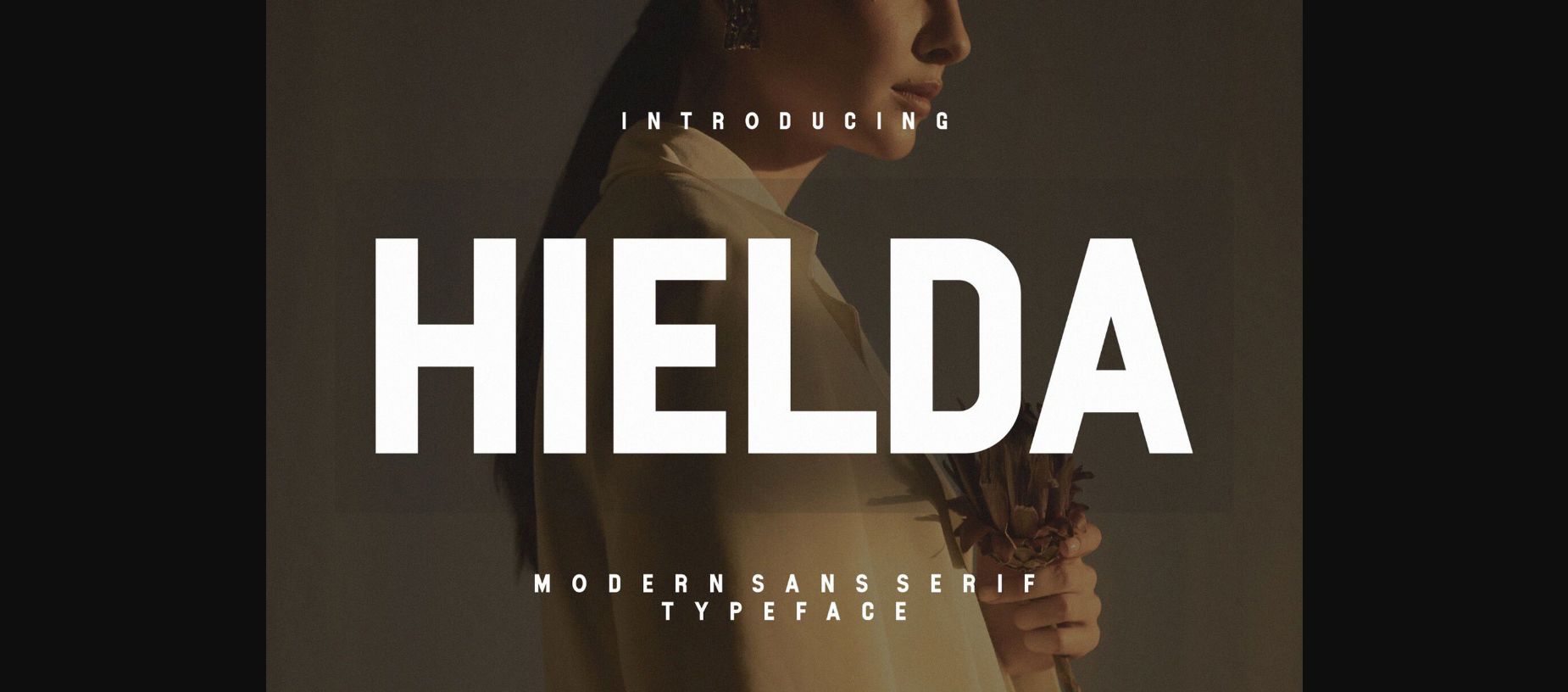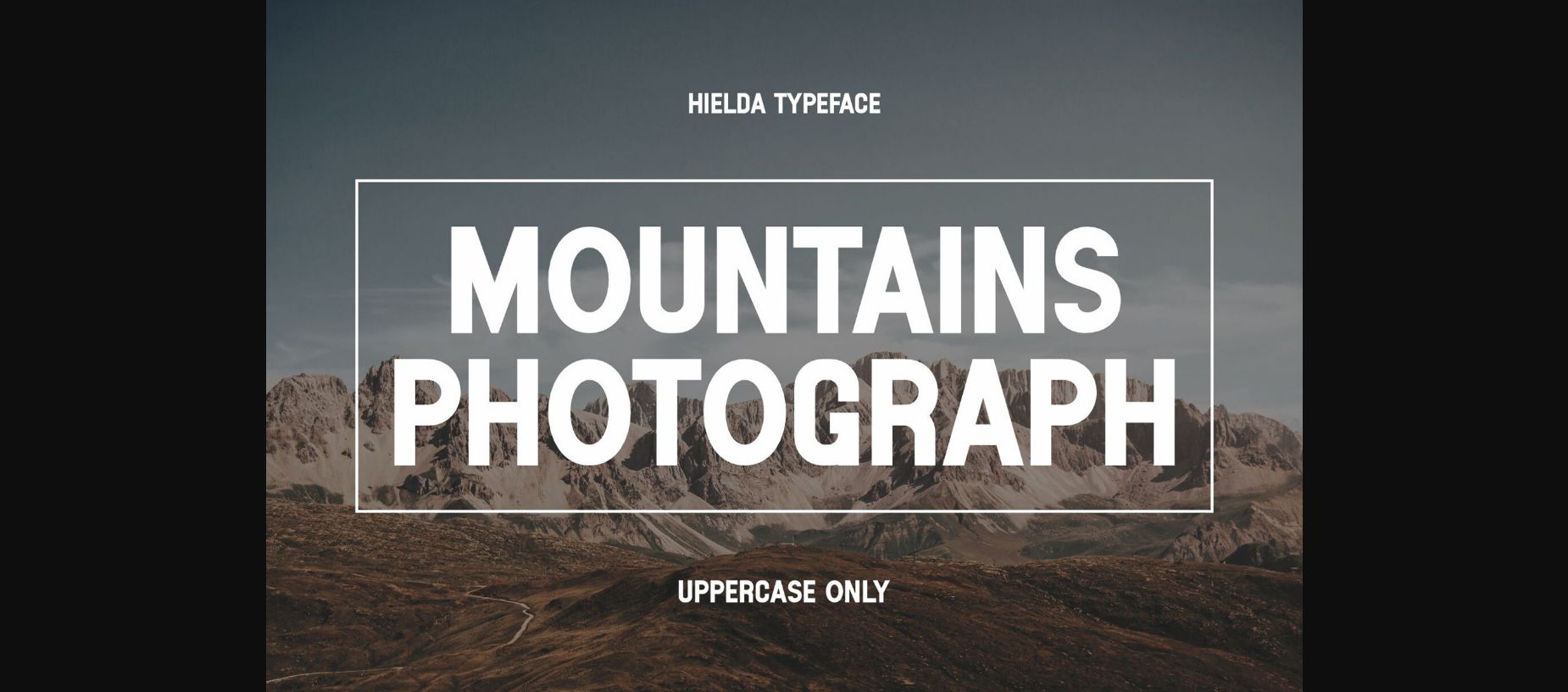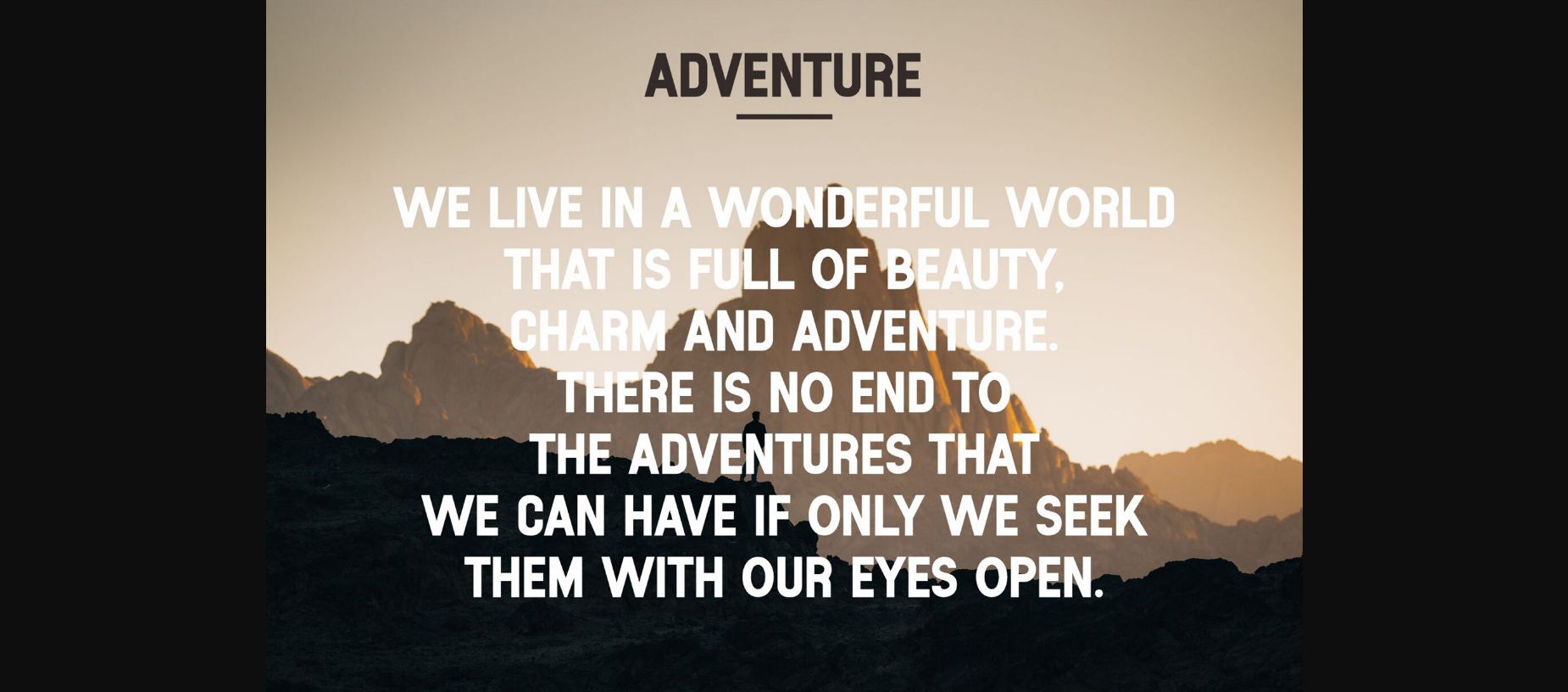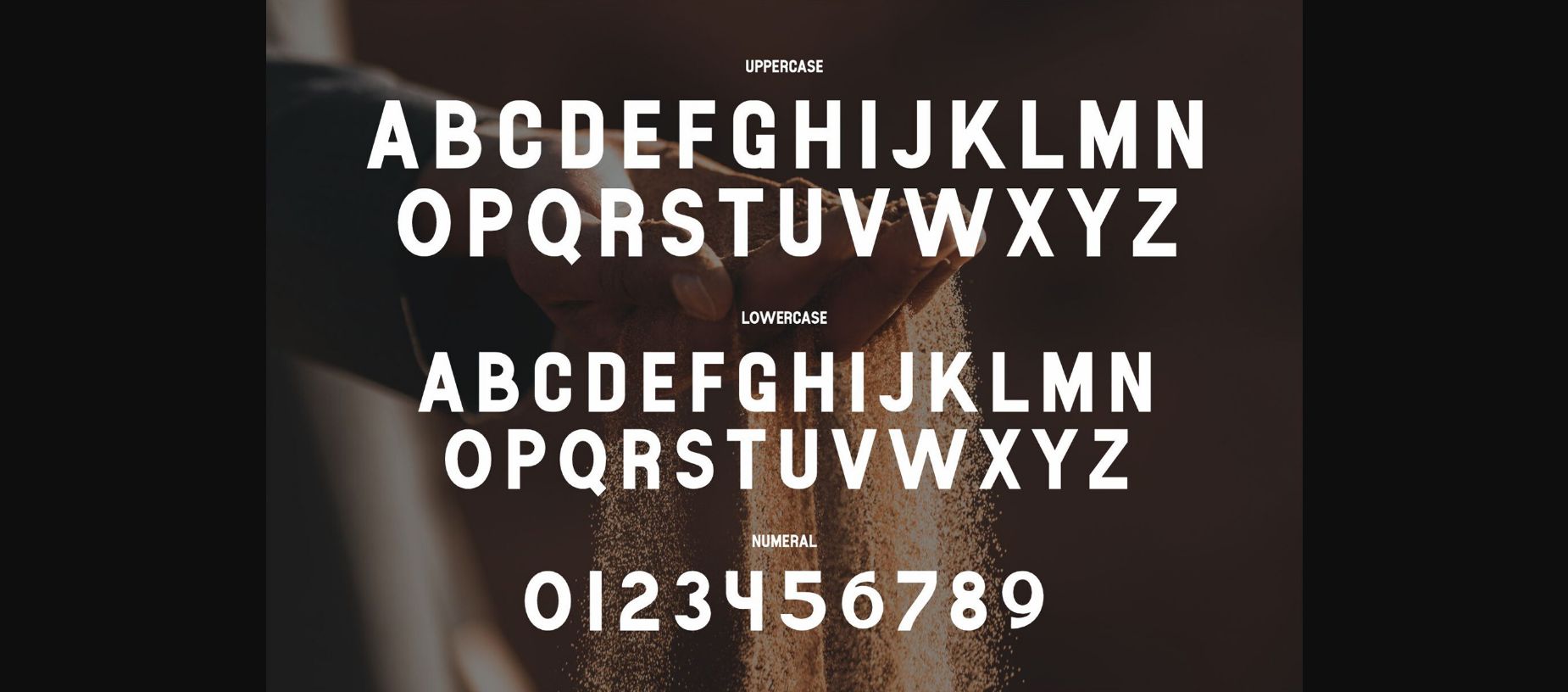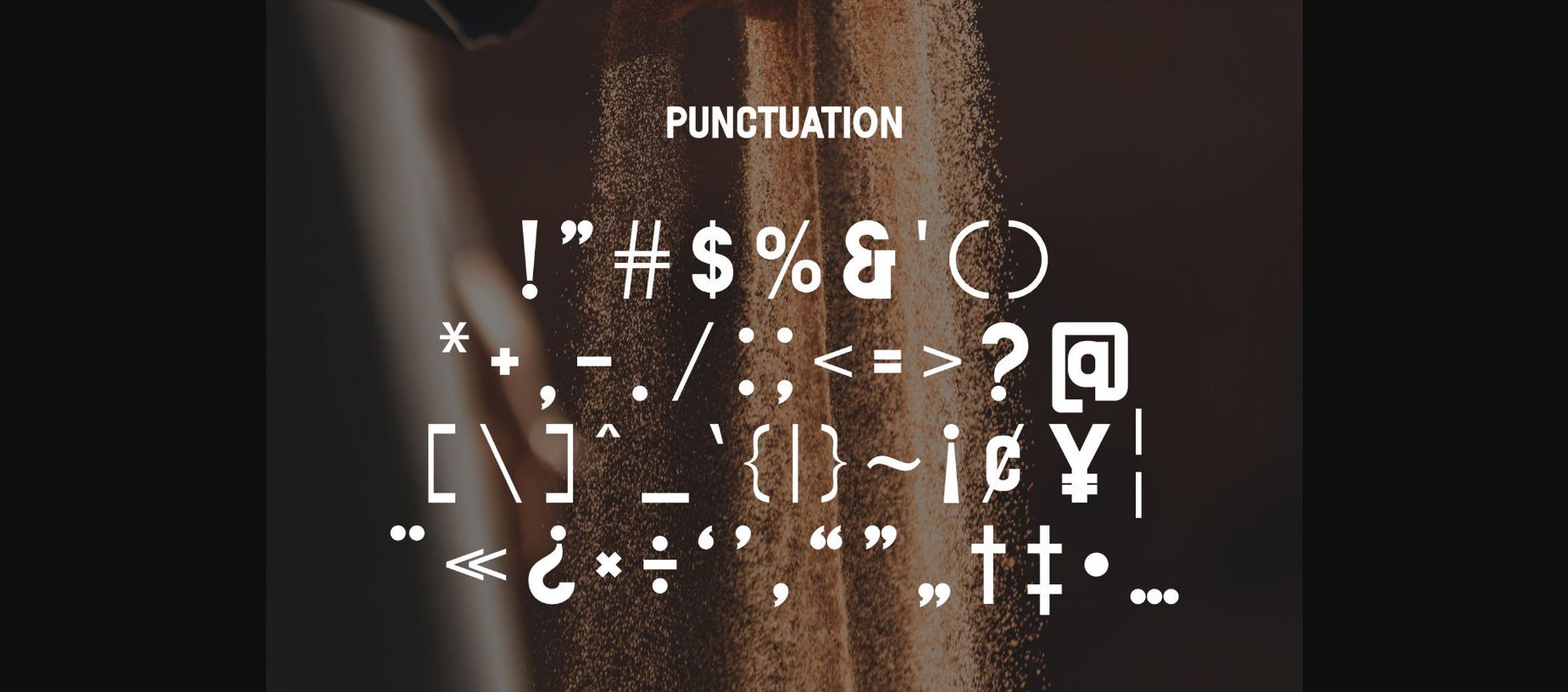
HomeSans Serif FontsHielda Font Sans Serif Fonts Hielda Font FacebookTwitterPinterestWhatsApp 1 of 7 ... Hielda Font Poster 2... Hielda Font Poster 3... Hielda Font Poster 4... Hielda Font Poster 5... Hielda Font Poster 6... Hielda Font Poster 7... About Hielda Font Hielda is an elegant and modern sans serif font. This minimalist and clean vibe can easily apply to your favorite designs such as book covers, magazines, social media posts, invitations, and so much more! DOWNLOAD NOW People also explored Foldest Font Marhaban Font Baginda Font Tour to Amsterdam Font DeHangster Font I Like It Bold Font Hellder Font Peace Font Jumping Finley Font 152 0 TagsHieldaHielda Font Previous articleHappy Kids Cool Lo FontNext articleGrand Ophius Font LEAVE A REPLY Cancel reply Comment: Please enter your comment! Name:* Please enter your name here Email:* You have entered an incorrect email address! Please enter your email address here Website: Save my name, email, and website in this browser for the next time I comment. Personal Use Free Adelfa Personal Use Free Read more about this font Shkoder 1989 Personal Use Free Read more about this font Jelly Fish Personal Use Free Read more about this font Motherblood Personal Use Free Read more about this font BLOG Free Fonts Risk: Why Free Fonts Can Be Dangerous for Designers Free Fonts Risk: Why Free Fonts Can Be Dangerous for Designers Using free fonts is a common practice in web and graphic design. However, the... Elegant Wedding Invitation Fonts – Handwritten & Script Fonts Transform Your Website: Elevate Your Typography with 7 Best Web Font Generators To increase your work productivity, choose the most readable fonts.